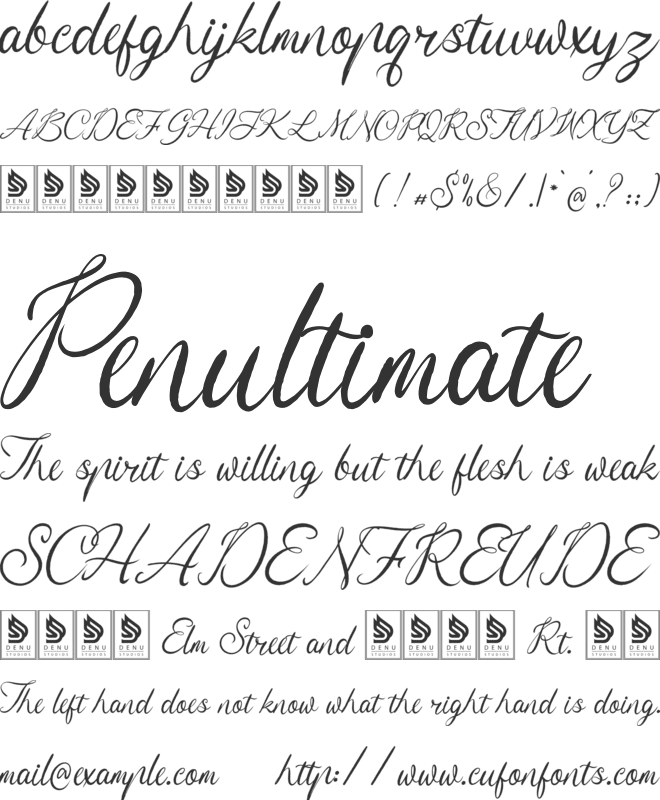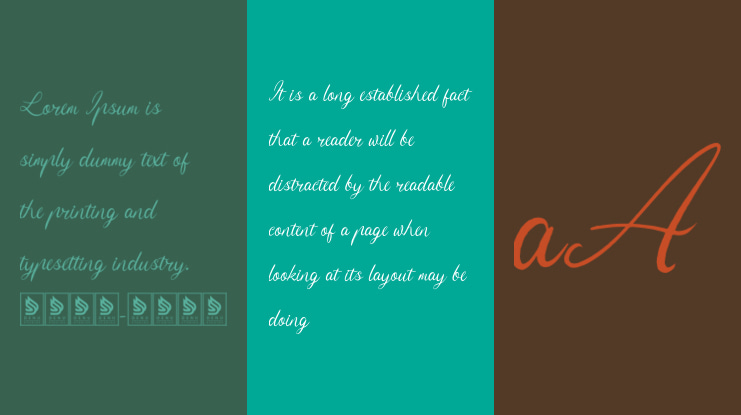
Serphina Lawliam | Handwritten Vintage Script, is suitable for any projects such as: logos, branding projects, homeware designs, product packaging, mugs, quotes, posters, shopping bags, t-shirts, book covers, name card, invitation cards, greeting cards, label, photography, watermark, special events, and all your other lovely projects that need a Script taste.